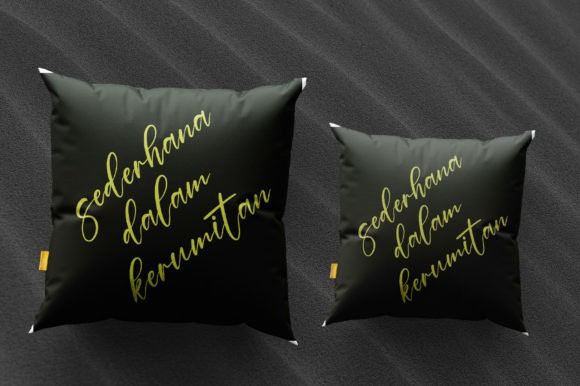
Brostory Font
Brostory feels equally charming and elegant. It looks beautiful on wedding invitations, thank you cards, quotes, greeting cards, logos, business cards and every other design which needs a customized touch.